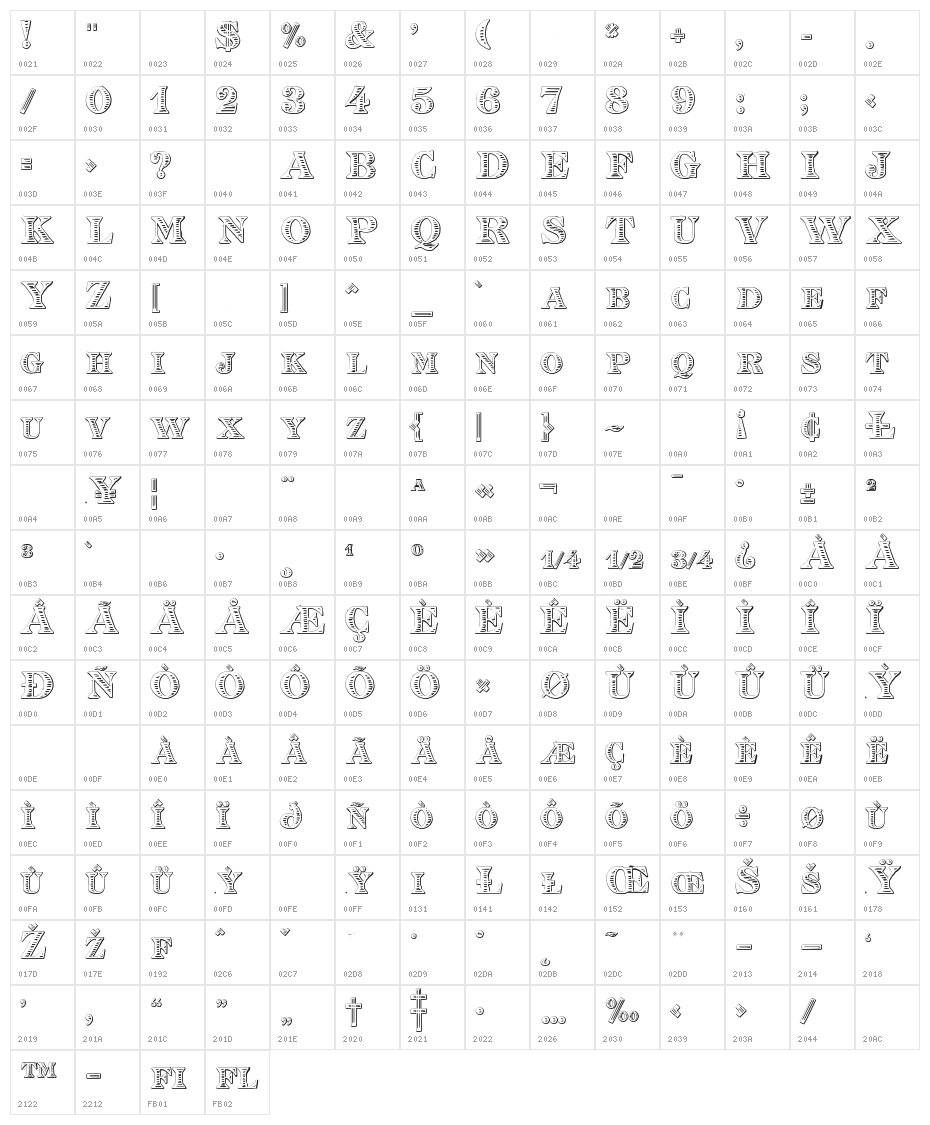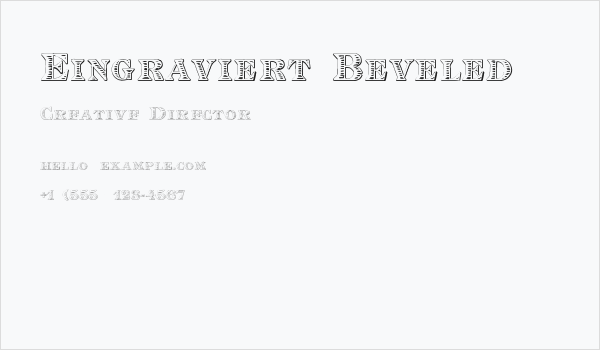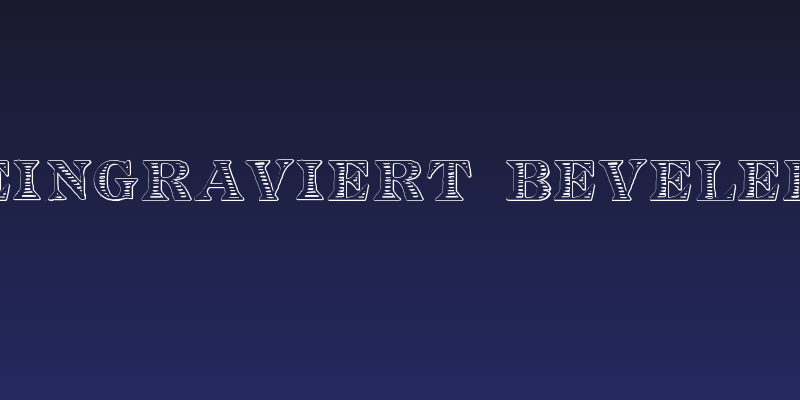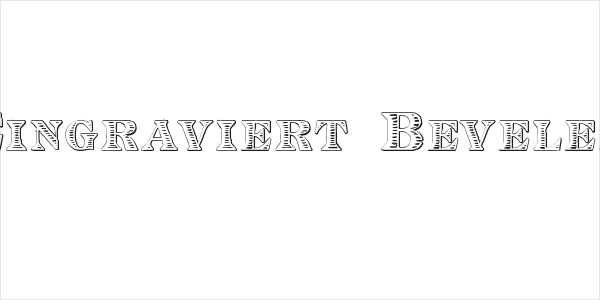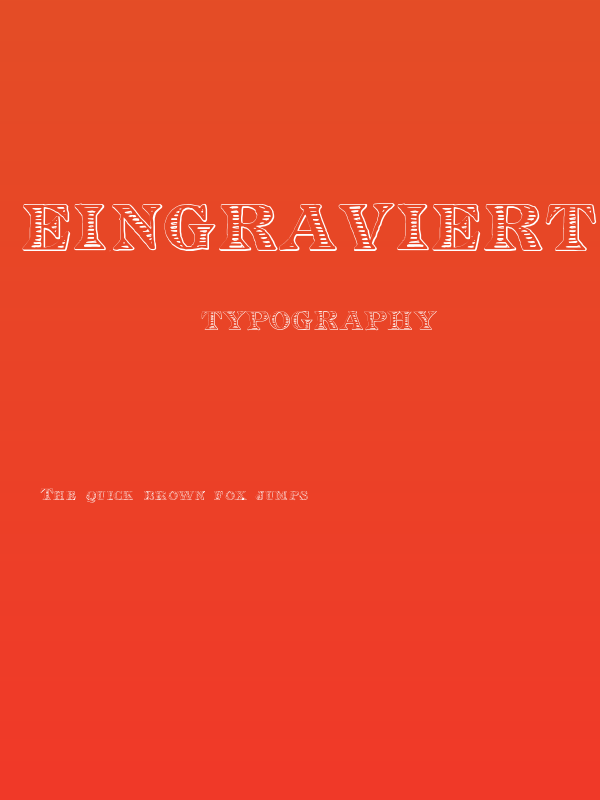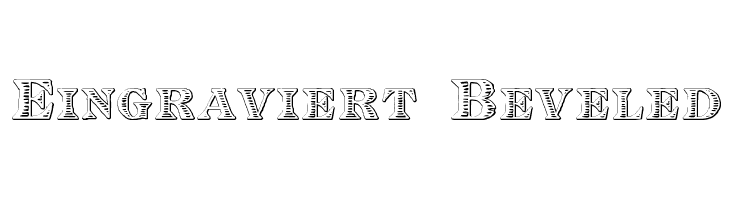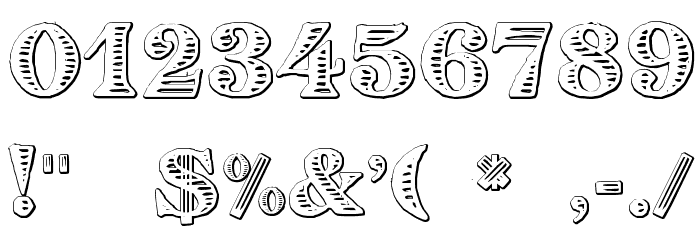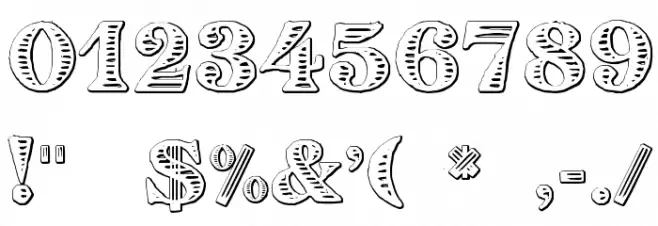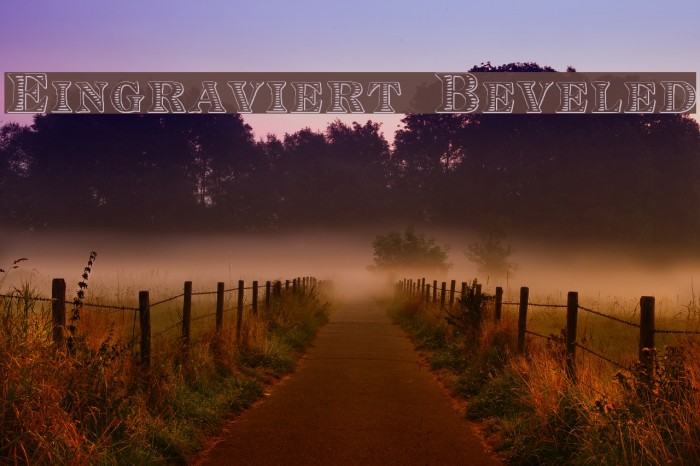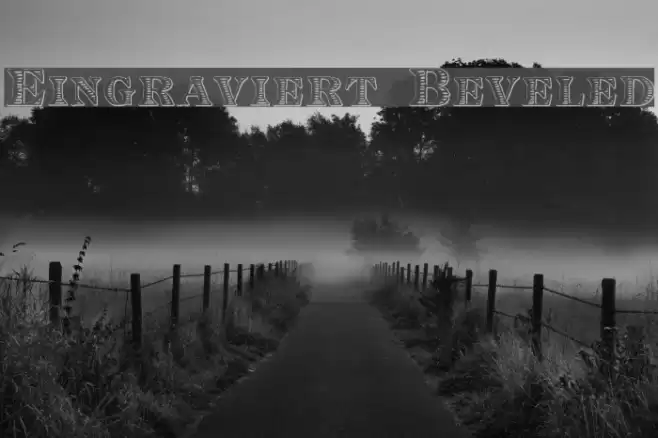
Eingraviert Beveled Font
Eingraviert Beveled Description
This font features a distinct beveled design, giving each character a three-dimensional appearance. The letters are bold and have a strong presence, with a decorative style that includes intricate line work within each character. The uppercase and lowercase letters maintain a consistent style, providing a cohesive look across the alphabet. The numerals and special characters follow the same design principles, ensuring uniformity throughout. This font's unique engraved effect makes it stand out, ideal for projects that require a touch of elegance and sophistication. The detailed craftsmanship in each letter adds a sense of depth and texture, making it suitable for various creative applications.
| Use Case | Logos, Headlines, Posters |
| Proposed Projects | Ideal for use in branding, packaging, posters, and invitations where a sophisticated and elegant look is desired. |